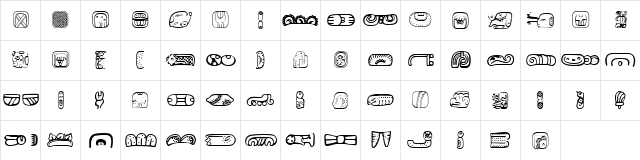
MesoAmerica Dings Three Regular
Design Context for MesoAmerica Dings Three Typeface
MesoAmerica Dings Three is a composed and adaptable typeface that performs quietly and consistently across a wide range of design contexts.